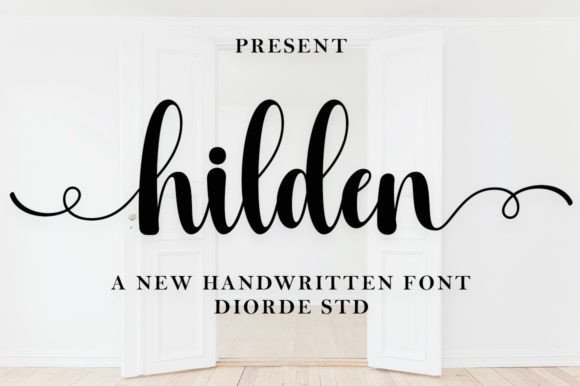
Adorn your designs with the timeless allure of Hilden, a script font family that embodies elegance, beauty, and handwritten charm. Crafted by the skilled hands of Diorde Studio, Hilden captivates with its neat and elegant strokes, making it the perfect choice for projects seeking a touch of vintage sophistication.
Unleash your creativity with Hilden, the ideal font for wedding invitations, cards, logos, posters, branding, and any design that craves a dash of fancy. Its fun and relaxed nature breathes life into your words, while its radically different style ensures your designs stand out from the crowd.
With Hilden, you'll craft spectacular designs that transcend time. Its PUA encoding grants you effortless access to glyphs and swashes, empowering you to add intricate details and flourishes to your work. Step into a world of timeless elegance with Hilden, where your designs blossom with sophistication and leave an everlasting impression.